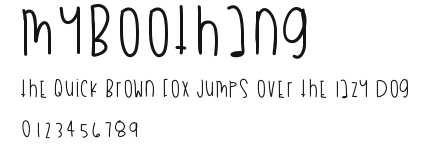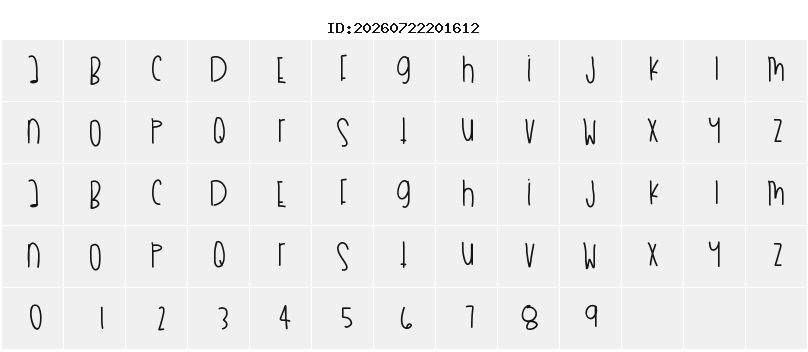
• Font Name: MyBooThang
• Full Font Name: MyBooThang
About MyBooThang.ttf
MyBooThang.ttf is a modern, elegant sans-serif font designed for ultimate readability and visual harmony. Perfect for branding, headlines, web design, and print materials.